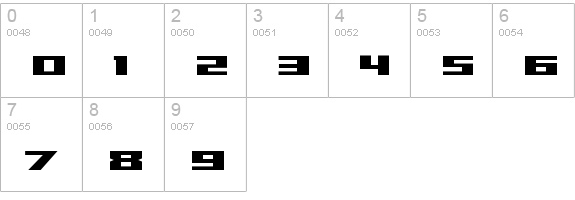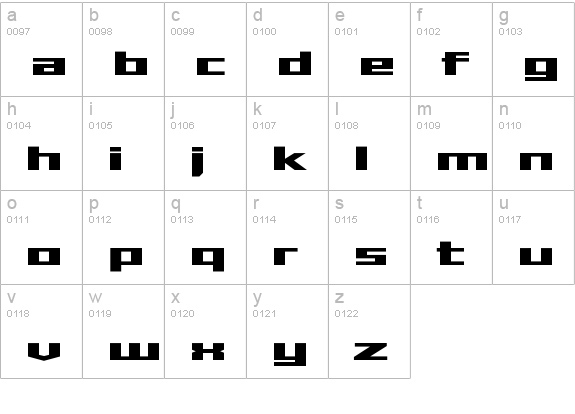
Introducing Shimano-SquareBlack font, the perfect blend of elegance and modernity. This stunning typeface is designed to make a bold statement with its strong and clean lines. The sharp edges and geometric forms give it a contemporary feel, making it ideal for various graphic design projects. Shimano-SquareBlack font is not only visually striking but also versatile, making it suitable for a wide range of creative endeavors. Whether you're working on branding, packaging, poster designs, or website headers, this font will add a touch of sophistication and professionalism to your projects. One of the best features of Shimano-SquareBlack font is that it is freely available to download at FontsMarket.com. This means that you can easily incorporate this eye-catching typeface into your designs without any additional cost. The convenience of having such a high-quality font at your fingertips allows you to unleash your creativity without any constraints. With its extensive character set, Shimano-SquareBlack font supports multiple languages, ensuring that you can communicate your message effectively to a global audience. The well-designed glyphs and meticulous attention to detail ensure legibility at any size, making this font suitable for both print and digital applications. Whether you're a seasoned designer or just starting your creative journey, Shimano-SquareBlack font is a must-have in your font library. Its sleek and modern aesthetic, coupled with its availability as a free download, makes it an irresistible choice. Don't miss out on the opportunity to elevate your designs with this exquisite typeface. Visit FontsMarket.com today and unlock the full potential of Shimano-SquareBlack font.